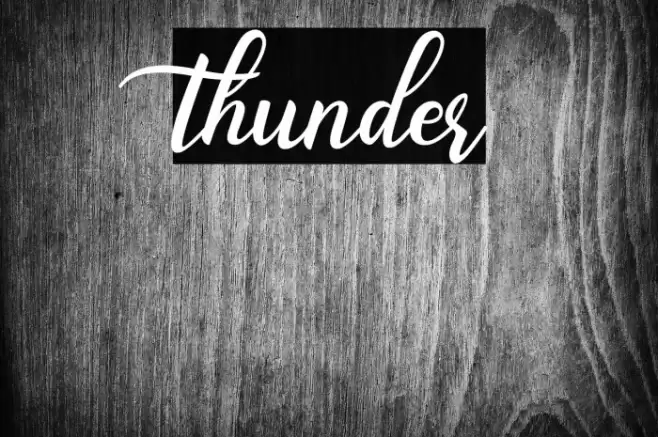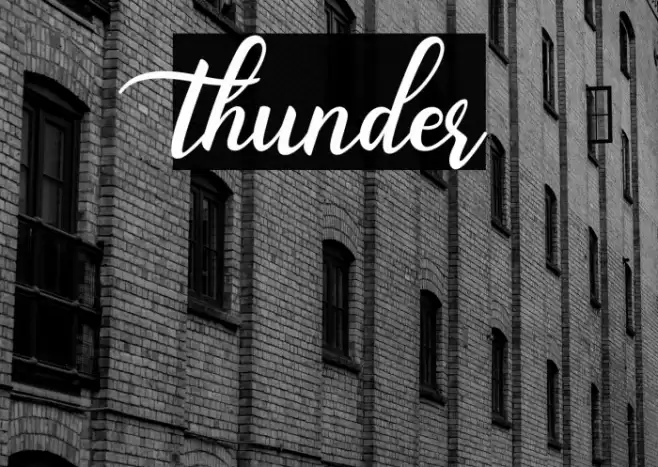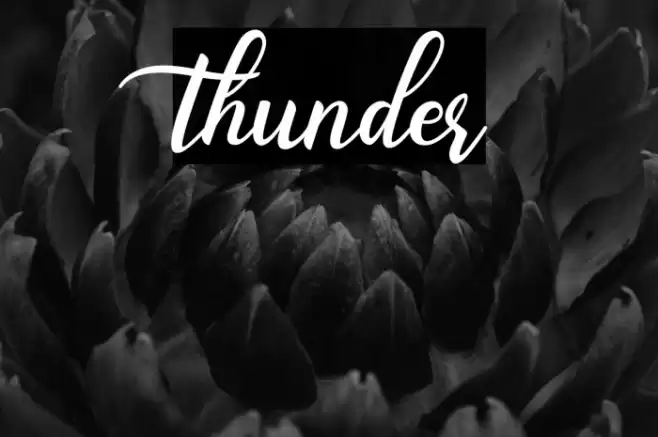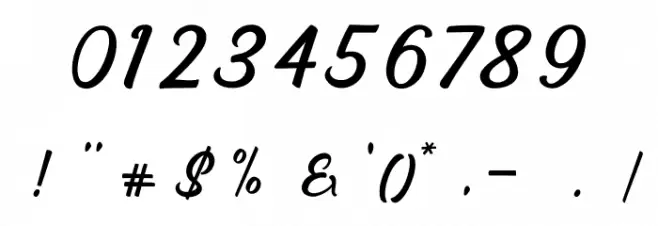
thunder Font
thunder Description
This font features a dynamic and elegant script style, characterized by its flowing, cursive letterforms. The uppercase letters exhibit a graceful, sweeping motion, while the lowercase letters maintain a consistent, fluid connection, enhancing readability. The numerals are distinct and maintain the same elegant style, making them suitable for various applications. Special characters are well-integrated, providing a cohesive look across all glyphs. The font's overall appearance is both sophisticated and approachable, making it versatile for a range of design projects.
A dynamic and elegant script font with flowing, cursive letterforms from Regular fonts.
- Proposed Projects: Ideal for wedding invitations, greeting cards, branding, and elegant packaging design.
- Overall Style: Elegant
- Use Case: Logos, Invitations, Decorative text